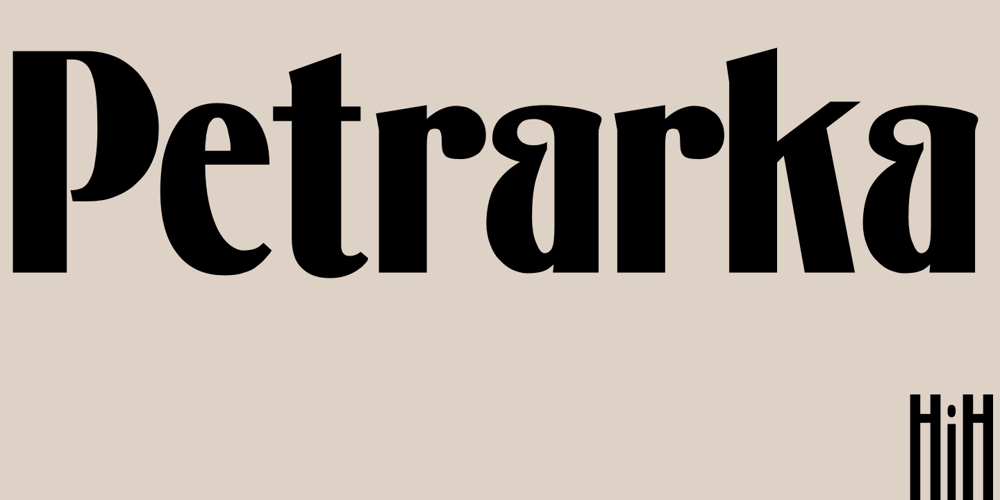
Petrarka
Petrarka font
Petrarka Font Family was designed by published by HiH. Petrarka contains 2 styles and family package options. Petrarka may be described as a Condensed, Sans-Serif, Semi-Fatface Roman. Huh? Bear with me on this. The Fatface is a name given to the popular nineteenth-century romans that where characterized by an extremity of contrast between the thick and thin stroke. The earliest example that is generally familiar is Thorowgood, believed to have been designed by Robert Thorne and released by Thorowgood Foundry in 1820 as “Five-line Pica No. 5.” Copied by many foundries, it became one of the more popular advertising types of the day. Later, in the period from about 1890 to 1950, you find a number of typeface designs with the thin stroke beefed up a bit, not quite so extreme. What you might call Semi-Fatfaced Romans begin to replace the extreme Fatfaces. Serifed designs like Bauer’s Bernard Roman Extra Bold and ATF’s Bold Antique appear. In addition, we see the development of semi-fatface lineals or Sans-Serif Semi-Fatfaces. Examples include Britannic (Stephenson Blake), Chambord Bold (Olive), Koloss (Ludwig & Mayer), Matthews (ATF) and Radiant Heavy (Ludlow). Petrarka has much in common with this latter group, but is distinguished by two salient features: it is condensed and it shows a strong blackletter influence, as seen in the ‘H’ particularly. Petrark was released about 1900 by the German foundry of Schelter & Giesecke of Leipzig and is one of the designs of the period that attempts to reconcile roman and blackletter traditions. Making a cameo appearance in this Multi-Lingual font is the Anglo-Saxon letter yogh (#729), which, along with the thorn and the eth, is always useful for preparing flyers in Old English. There are still pockets of resistance to the Norman French influence that washed up on England’s shores in 1066. This font stands with King Canute, seeking to hold back the tide (ignoring the fact that Canute was a Dane). Support the fight to preserve Anglo-Saxon culture. Buy Petrarka ML today. Petrarka Initials brings together the Petrarka upper case letters with a very sympatico Art Nouveau rendering of a female face.